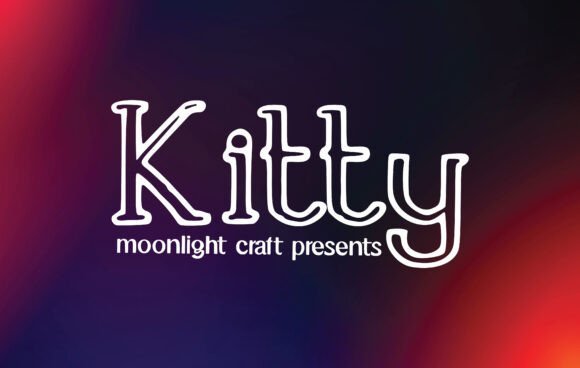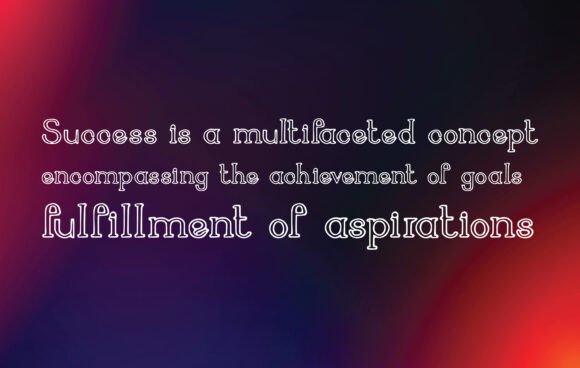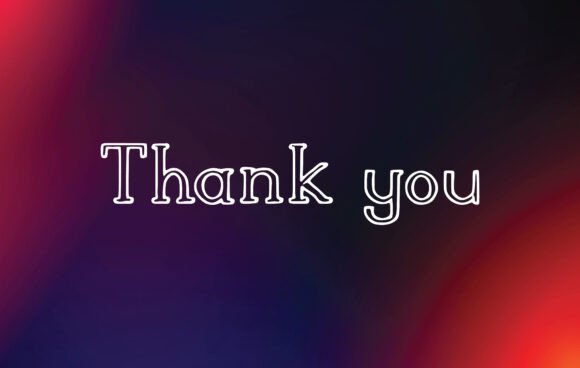
The Purrfect Touch: Unlocking Creativity with Kitty Font
Have you ever been brainstorming a new project and suddenly, the perfect idea strikes you? The room is filled with excitement, and your mind starts racing with possibilities. It’s those magical moments that make being a designer so thrilling. And, what if I told you that there’s a font that can help you capture that spark and bring your creative ideas to life? Welcome to Kitty Font, a beautiful and elegant handwritten font designed to elevate your visual storytelling.
Kitty Font is more than just a font – it’s a tool that helps designers create eye-catching logos, branding, and quotes that leave a lasting impression. Its unique charm and personality make it a valuable addition to any designer’s toolkit, allowing them to add a touch of whimsy and sophistication to their work. Whether you’re a seasoned pro or just starting out, Kitty Font is sure to inspire your next creative project.
Kitty Font Key Features
- Unique Characteristics: The font features a distinctive, playful style with rounded edges and a sense of whimsy, making it perfect for designs that require a touch of personality.
- Font Width: The font has a medium to wide width, making it suitable for use in headings, titles, and other display text where a bolder font is desired.
Kitty Font Review
As a designer, I was excited to try out the Kitty Font, and I must say it has some unique features that caught my attention ✨. The font is highly customizable, allowing users to adjust the size, color, and even add fun little features like kitty ears or a tail. This makes it perfect for designers looking to add a playful touch to their projects.
- Fun and playful design
- Great for adding a personal touch to projects
However, there are some limitations to consider ⚠️. The font is not ideal for large blocks of text, as it can become overwhelming and difficult to read. Additionally, the customizability can be a double-edged sword, as it may not be suitable for all types of projects or audiences.
- Not ideal for large blocks of text
- Customizability may not be suitable for all projects or audiences
Overall, I would say the Kitty Font is a fun and creative option for designers looking to add a playful touch to their projects. While it has some limitations, it’s a great choice for small projects or social media graphics where a fun, whimsical design is desired.
To get the most out of Kitty Font, try combining it with other playful fonts or using it in bold or italic styles to add emphasis. You can also experiment with different font sizes to create visual interest.
Kitty Font is commonly used for:
– Children’s party invitations and decorations
– Food and pet-related branding and marketing materials
– Whimsical and playful designs for businesses and events